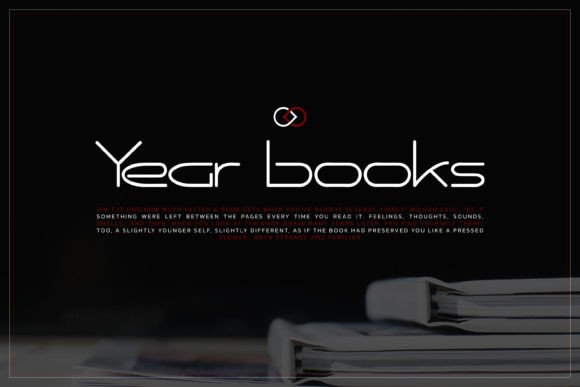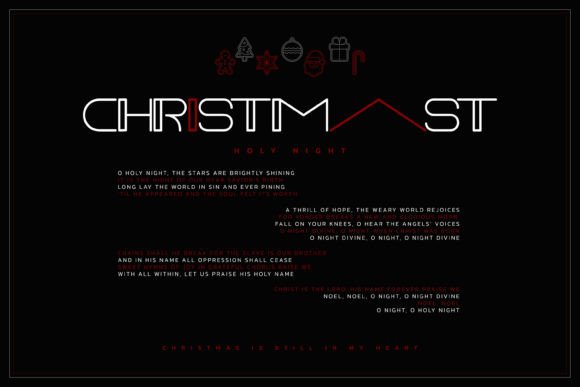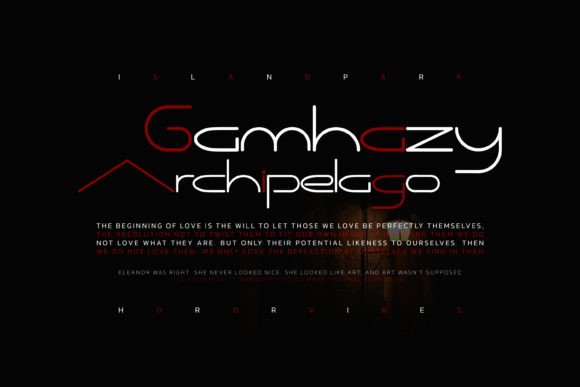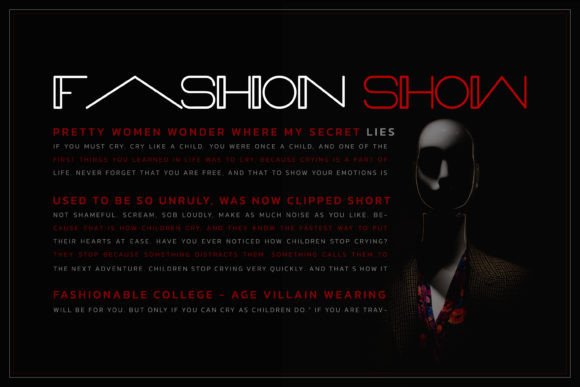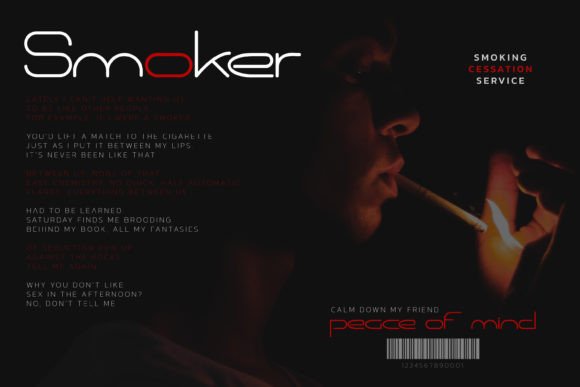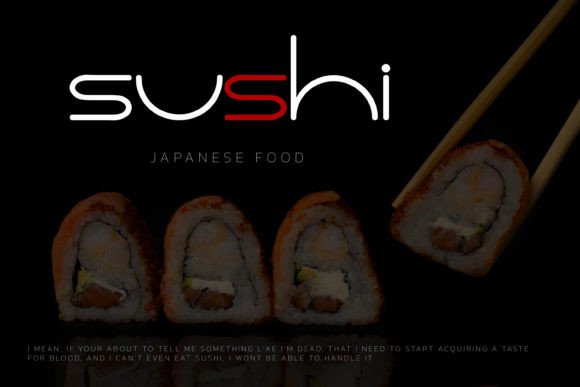
Introducing Galileo Font: Elevate Your Designs with a Touch of Sophistication
In the world of typography, a font can make or break a design. It’s the foundation upon which the entire visual aesthetic is built. For designers and crafters looking to create sophisticated projects that leave a lasting impression, the Galileo Font is an excellent choice. This stylish and uniquely-shaped sans serif font is designed to help you stand out from the crowd and communicate your message with elegance and poise.
The Unique Characteristics of Galileo Font
Galileo Font boasts an original look that sets it apart from more traditional sans serif fonts. Its clean lines, precise curves, and distinctive shape make it an excellent choice for a wide range of design applications. Whether you’re working on a luxury brand identity, a high-end product packaging, or a sophisticated website, Galileo Font is sure to bring a touch of sophistication and refinement to your project.
Key Features of Galileo Font
- Uniquely-shaped sans serif font: Galileo Font’s distinctive shape sets it apart from more traditional sans serif fonts, making it perfect for designers looking to create something new and innovative.
- Clean lines and precise curves: The font’s clean lines and precise curves ensure that it remains highly legible, even at smaller sizes.
- Sophisticated and elegant: Galileo Font’s sophisticated and elegant design makes it perfect for high-end designs, luxury brands, and projects that require a touch of refinement.
- Highly versatile: The font’s versatility makes it suitable for a wide range of design applications, from print to digital.
How to Use Galileo Font in Your Designs
Galileo Font is an incredibly versatile font that can be used in a wide range of design applications. Here are a few ideas to get you started:
- Logo design: Use Galileo Font to create a sophisticated and elegant logo that reflects your brand’s values and personality.
- Branding and identity: Galileo Font is perfect for creating a cohesive brand identity that exudes sophistication and refinement.
- Web design: Use Galileo Font to create a visually stunning website that showcases your brand’s personality and style.
- Print design: Galileo Font is also suitable for print design applications, such as business cards, brochures, and packaging.
Tips for Getting the Most Out of Galileo Font
To get the most out of Galileo Font, here are a few tips to keep in mind:
- Experiment with different sizes: Galileo Font remains highly legible even at smaller sizes, so don’t be afraid to experiment with different sizes to find the one that works best for your design.
- Play with color: Galileo Font looks great in a variety of colors, so don’t be afraid to experiment with different color combinations to find the one that works best for your design.
- Pair it with other fonts: Galileo Font can be paired with other fonts to create a unique and visually interesting design.
In conclusion, Galileo Font is a stylish and uniquely-shaped sans serif font that’s perfect for designers and crafters looking to create sophisticated projects that need to impress an audience. Its clean lines, precise curves, and distinctive shape make it an excellent choice for a wide range of design applications. With its high versatility, elegance, and sophistication, Galileo Font is sure to become a staple in your font collection.